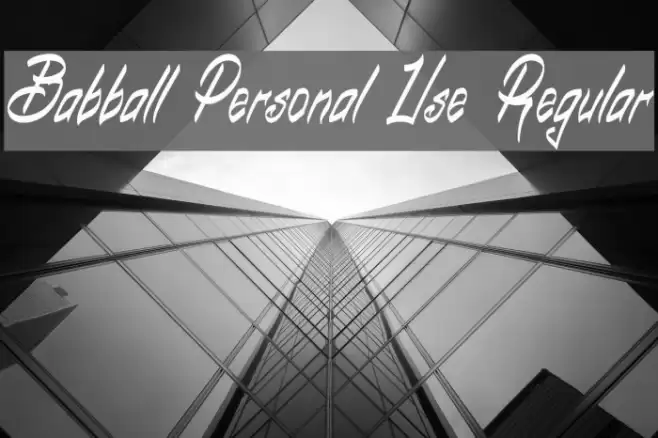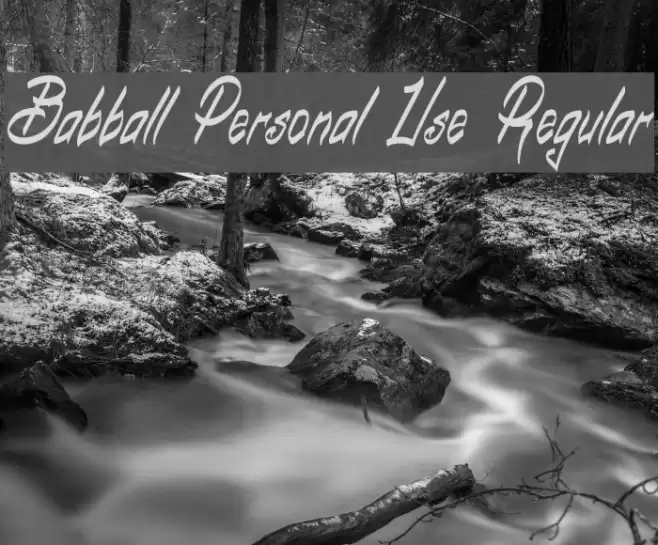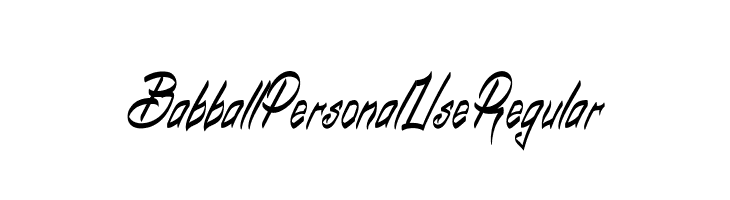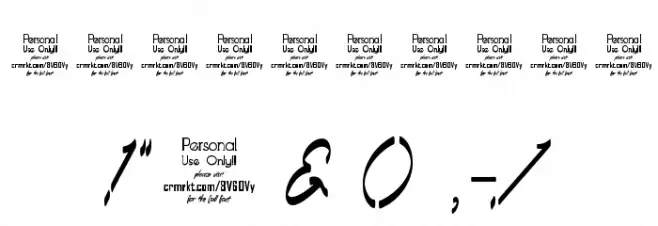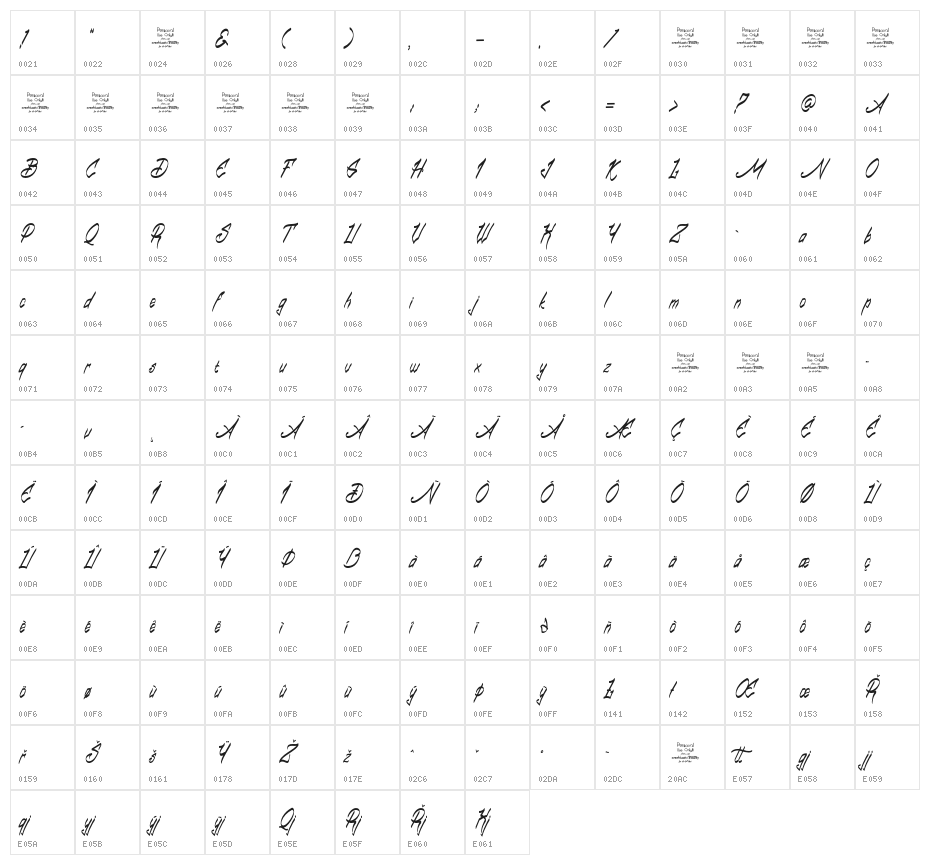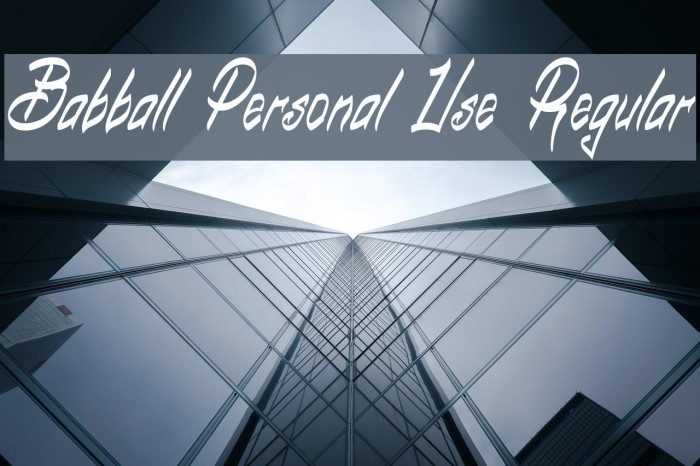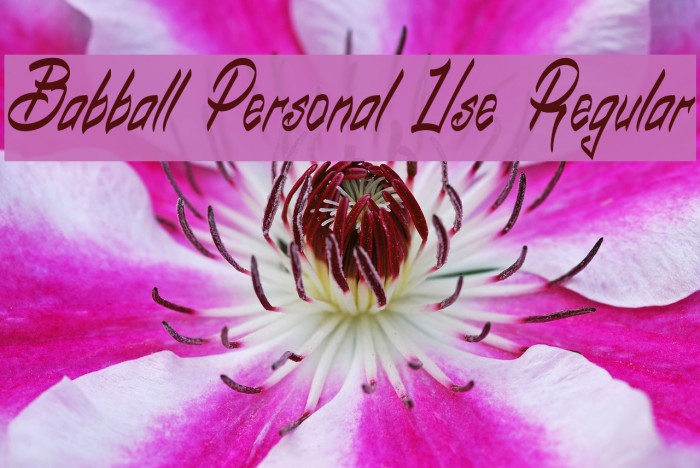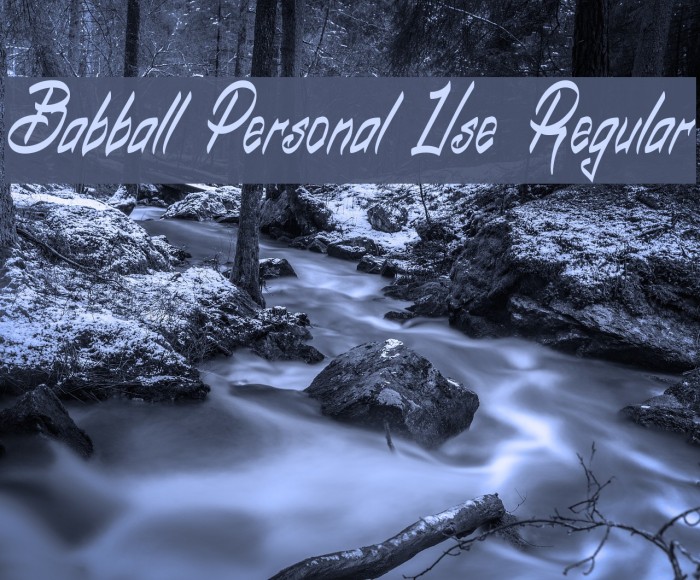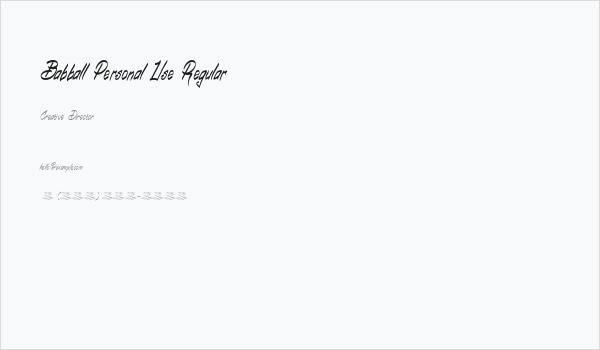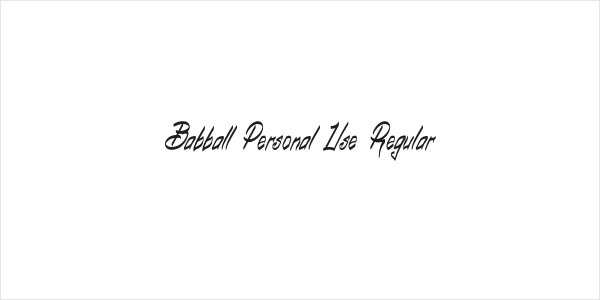
Babball Personal Use Regular Font
Babball Personal Use Regular Description
This font features an elegant and flowing script style, characterized by its smooth, cursive letterforms that convey a sense of sophistication and grace. The uppercase letters are bold and sweeping, with dramatic flourishes that add a touch of flair. The lowercase letters maintain a consistent flow, enhancing readability while retaining the decorative essence. The numerals and special characters are crafted with the same attention to detail, ensuring a cohesive appearance across all glyphs. This font's design is ideal for projects that require a personal or artistic touch, such as invitations, greeting cards, or branding materials.
An elegant script font with flowing, cursive letterforms and decorative flourishes from Uncategorized fonts.
- Proposed Projects: Ideal for wedding invitations, greeting cards, personal branding, and artistic projects.
- Use Case: Logos, Invitations, Artistic projects